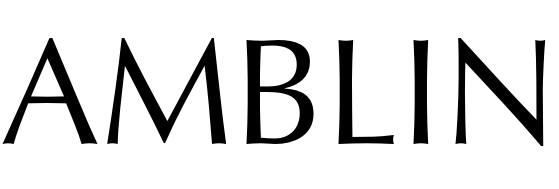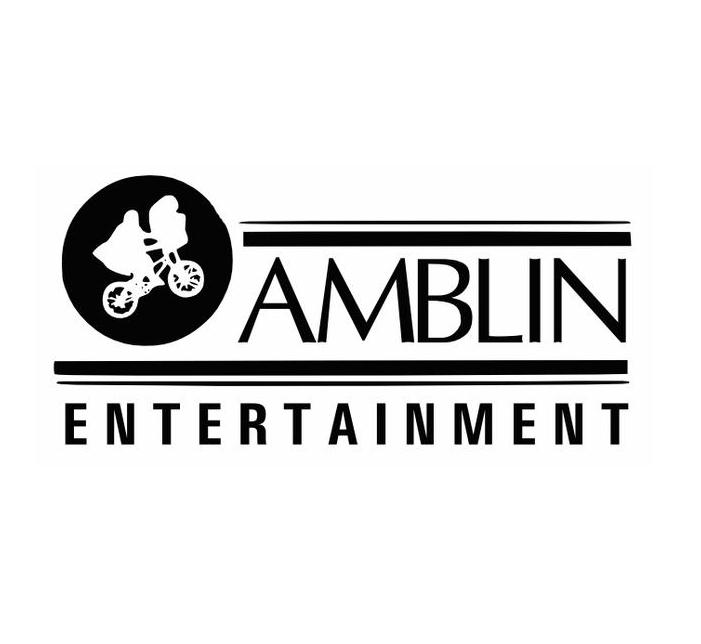
Amblin Entertainment Font
EntertainmentAmblin Entertainment is a film and television production company founded by Steven Spielberg, Kathleen Kennedy, and Frank Marshall in 1981. The company is known for producing classic films such as E.T. the Extra-Terrestrial, Jurassic Park, and Schindler's List.
Amblin Entertainment's logo features E.T. riding on a bicycle with Elliott in front of the moon, from their 1982 film E.T. the Extra-Terrestrial. The text "AMBLIN" is written in Optima Roman, a humanistic sans-serif font created by the renowned German type designer, Hermann Zapf, and considered as one of his most popular works.